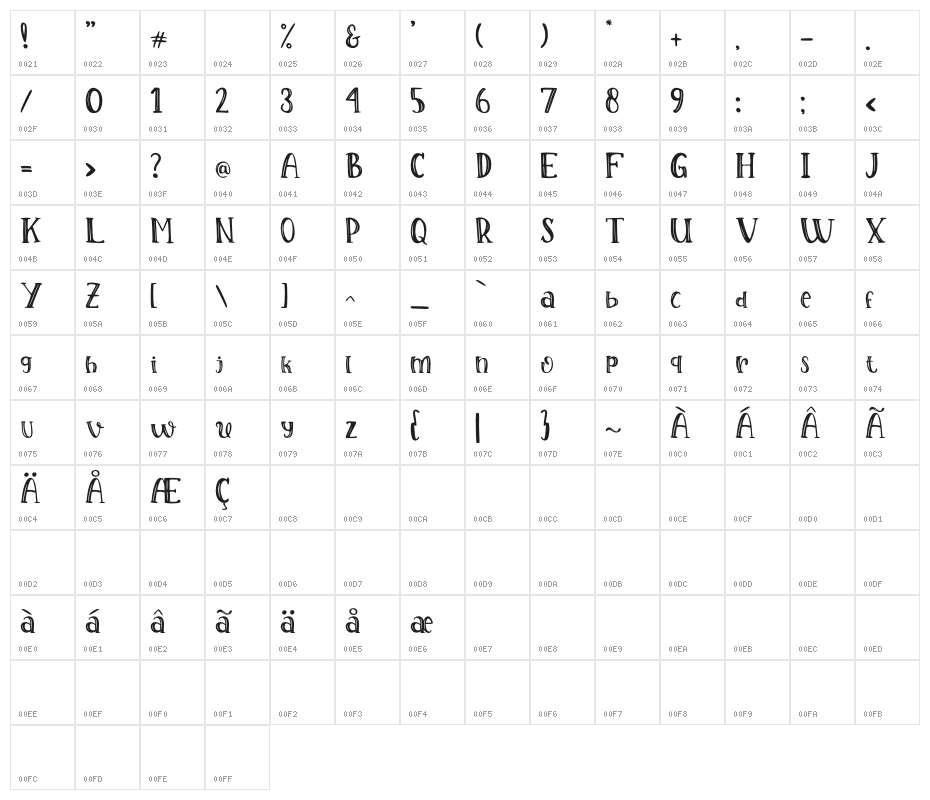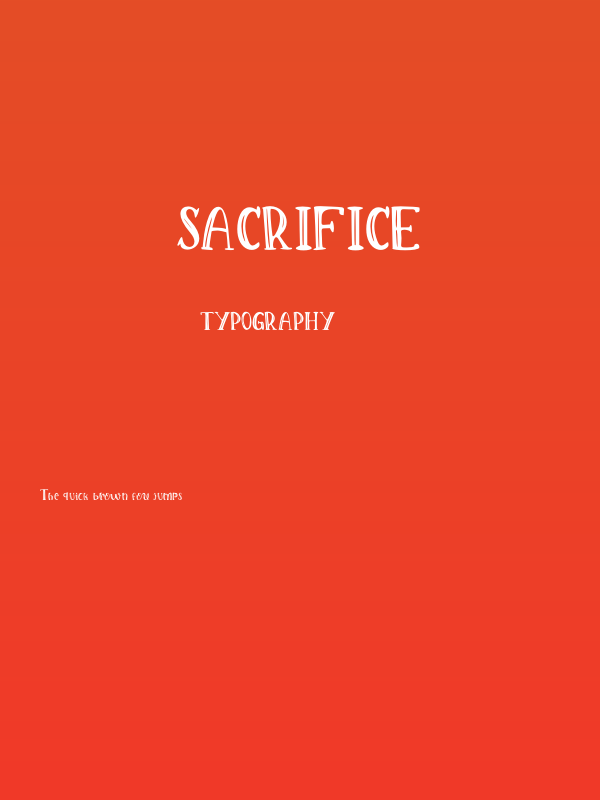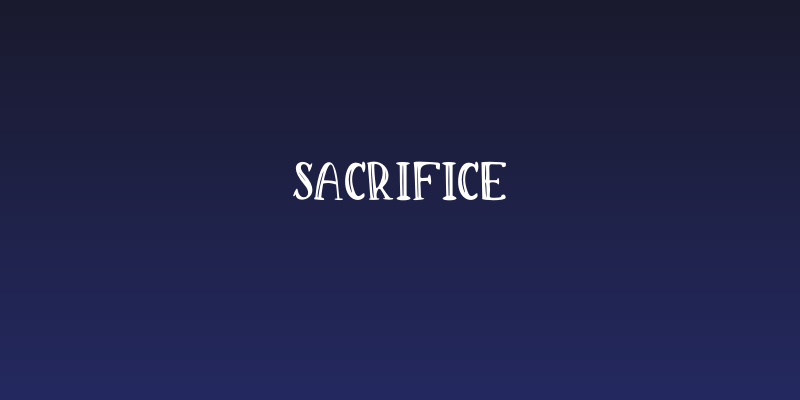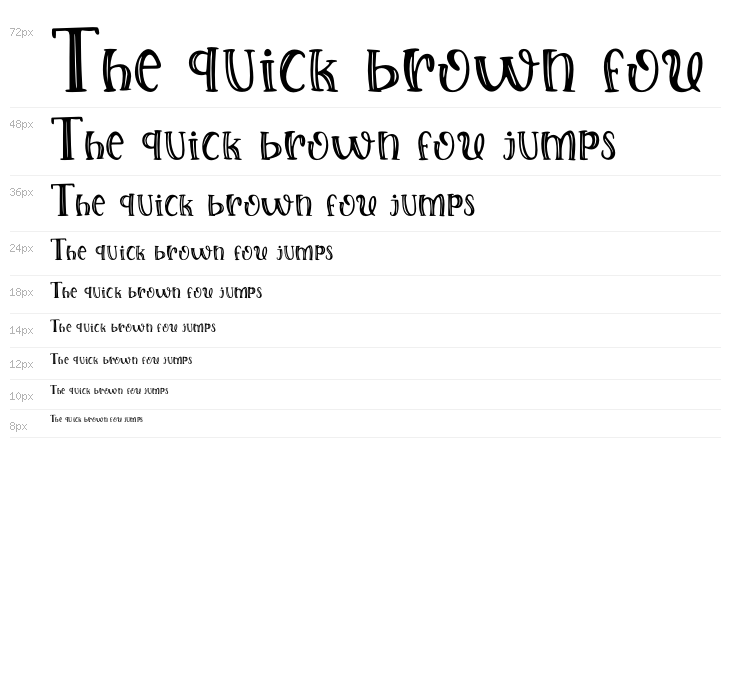
Sacrifice Font
Sacrifice Description
This font features a playful and whimsical design, characterized by its bold, curvy strokes and unique, slightly irregular shapes. The uppercase letters have a distinctive flair, with exaggerated serifs and varying line thickness that add a sense of movement and energy. The lowercase letters maintain this playful style, with some letters featuring loops and curls that enhance the font's lively personality. The numerals are equally dynamic, with a consistent boldness that ensures readability while maintaining the font's overall quirky aesthetic. Special characters are designed to match the font's energetic style, making them suitable for creative and informal applications.